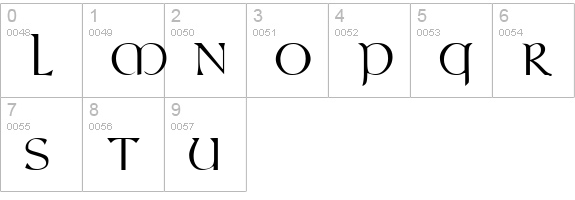
Durrow Font Details
Durrow font is a stylish and elegant typeface that combines modern aesthetics with classic charm. With its clean lines and sophisticated design, Durrow is perfect for a wide range of projects, from branding to editorial design. This versatile font features a unique blend of traditional and contemporary elements, making it a distinctive choice for any creative endeavor. What's even better is that Durrow font is available for free download at FontsMarket.com. This means that you can easily access this high-quality font without any cost, making it a valuable addition to your font library. Don't miss out on the opportunity to enhance your designs with the timeless elegance of Durrow font, now conveniently and freely available for you to enjoy.